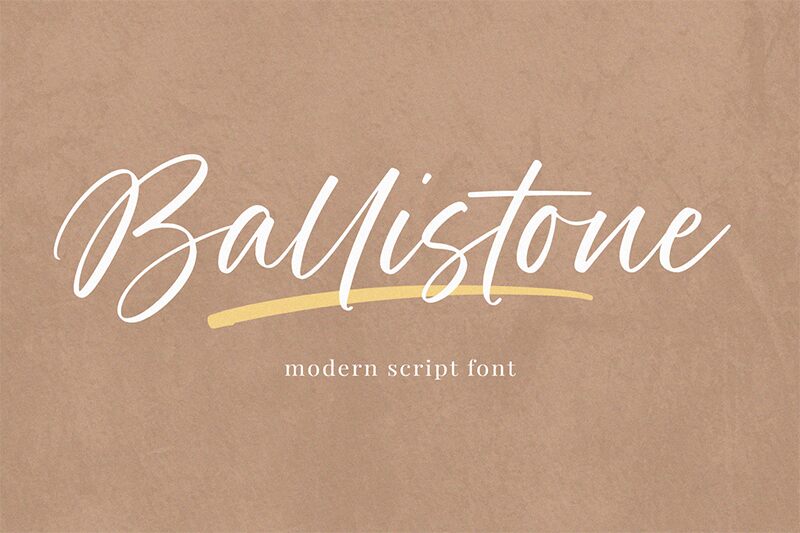
Ballistone
Ballistone dances across the page with an elegance crafted by Timur Type. This calligraphy font exudes a hand-drawn charm that speaks of personal correspondence and artful design. Sweeping strokes and fluid lines give it a timeless grace, while its bold presence makes a statement without overwhelming the senses. Its aesthetic appeal lies in the harmonious balance between flair and function, making it perfect for invitations, branding, and anywhere a touch of sophistication is needed.
Ballistone's style effortlessly elevates any text to a work of art, inviting readers into a world where every letter is crafted with care.